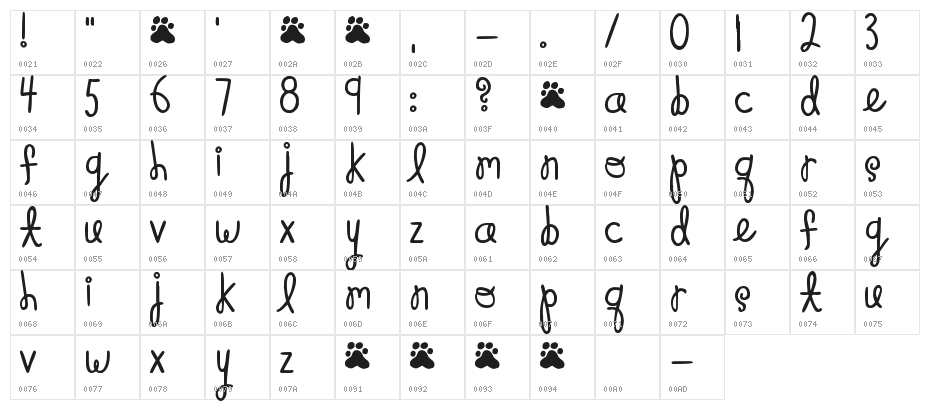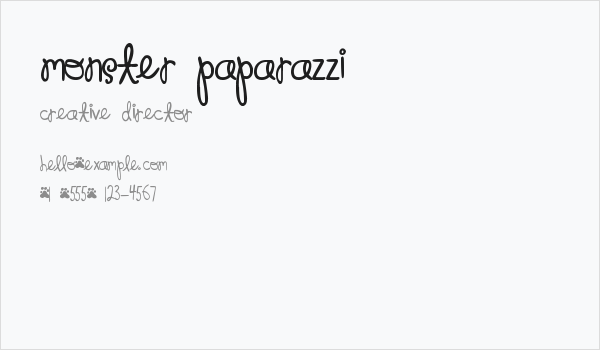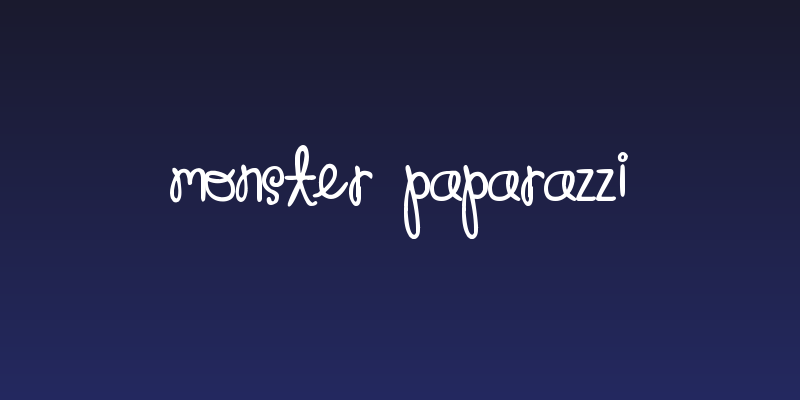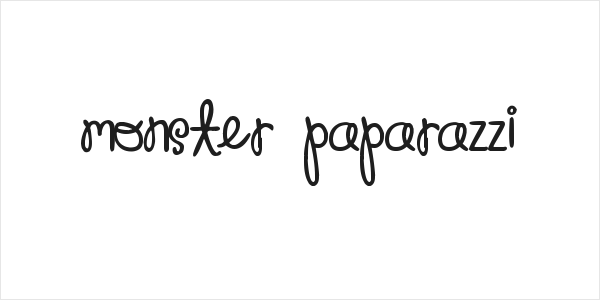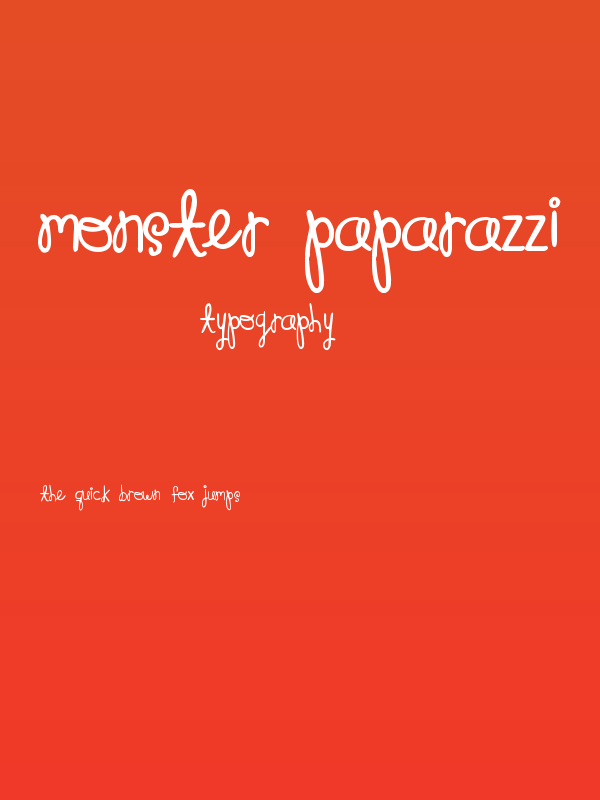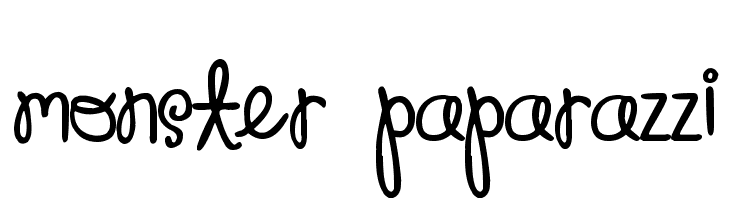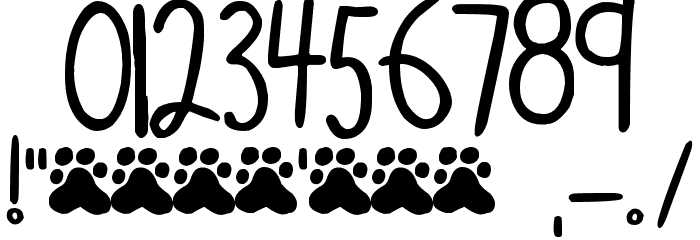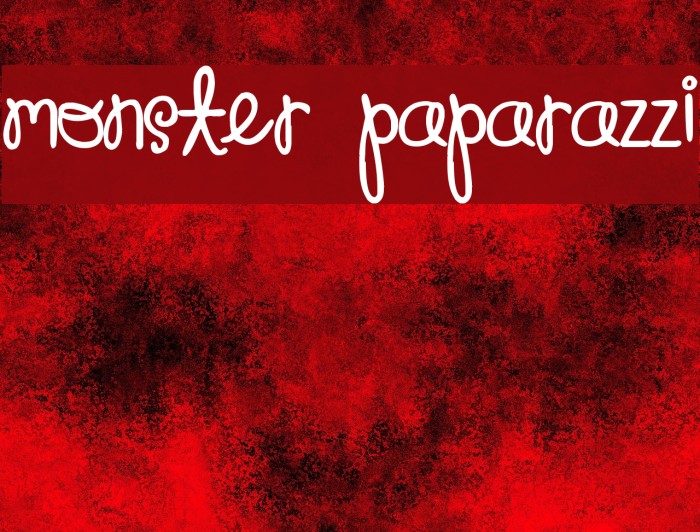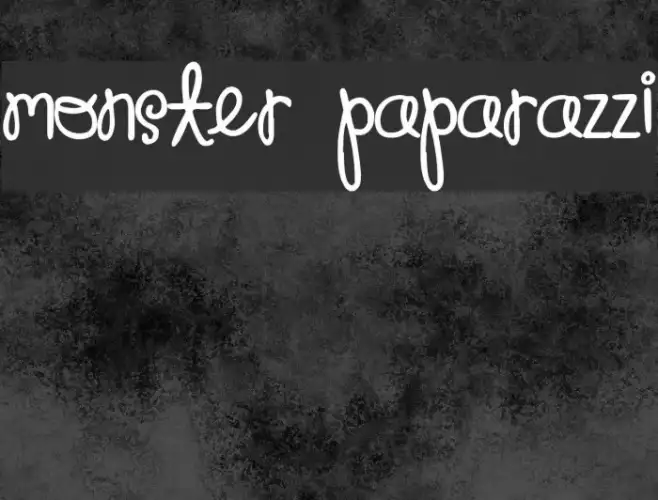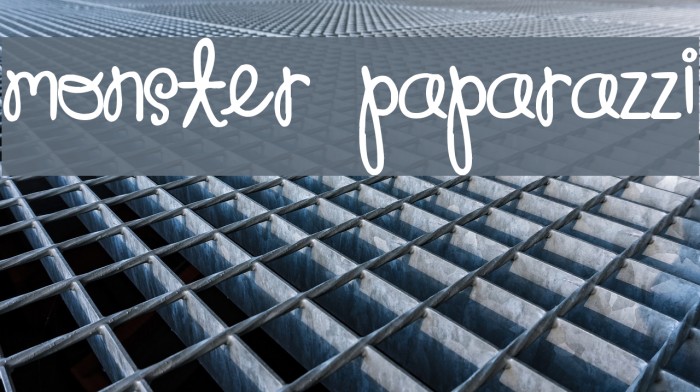
Monster Paparazzi Font
This playful and whimsical font features a handwritten style with a casual, friendly appearance. The letters are rounded and slightly irregular, giving it a unique and approachable look. The lowercase letters have a consistent height, while the uppercase letters maintain a similar width, creating a harmonious balance. The numbers are bold and clear, ensuring readability. Special characters like punctuation marks and symbols are designed with the same playful aesthetic, adding to the font's charm. This font is perfect for projects that require a personal touch or a fun, informal vibe.
| Proposed Projects | Ideal for children's books, greeting cards, playful branding, and social media graphics. |